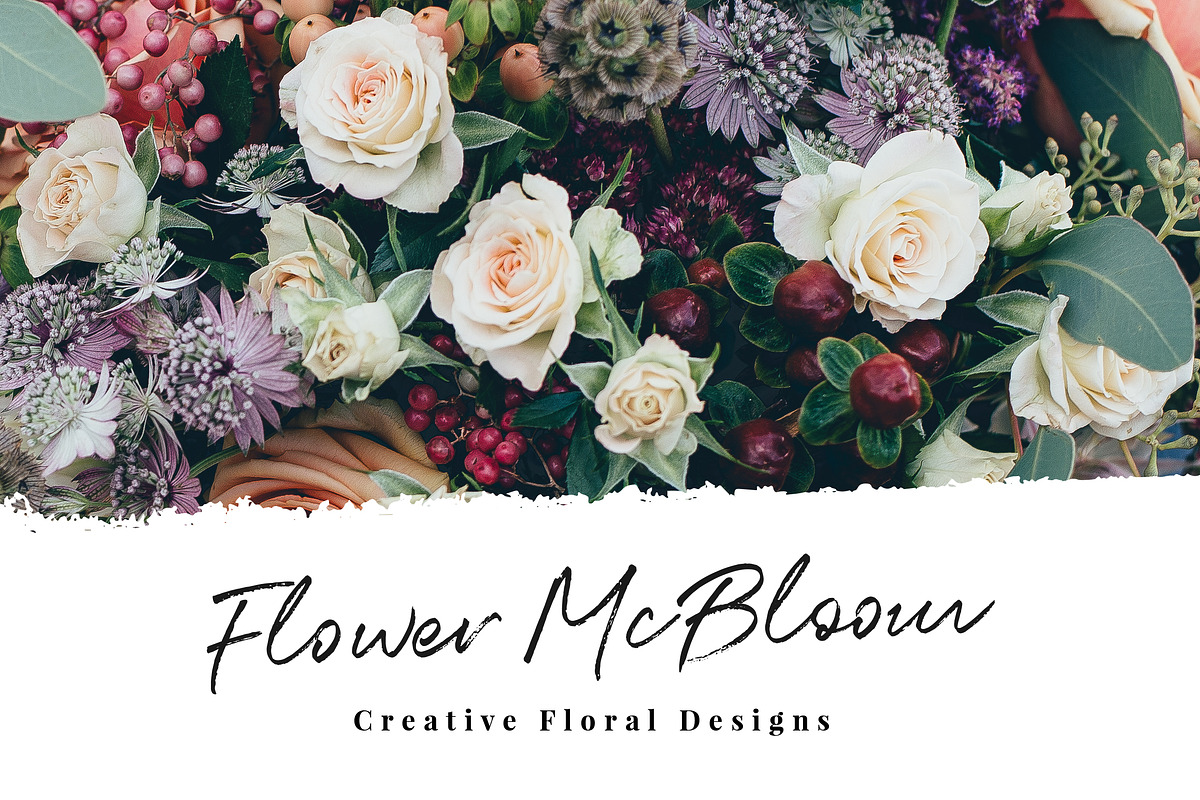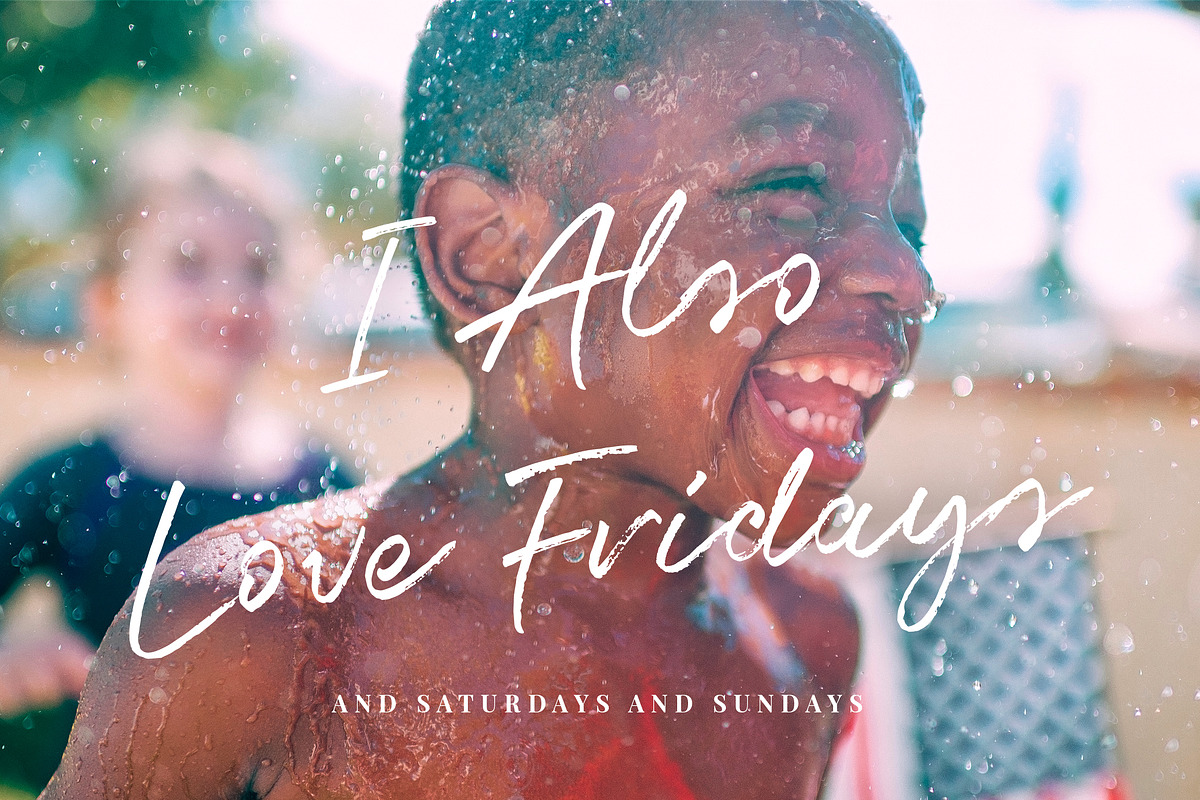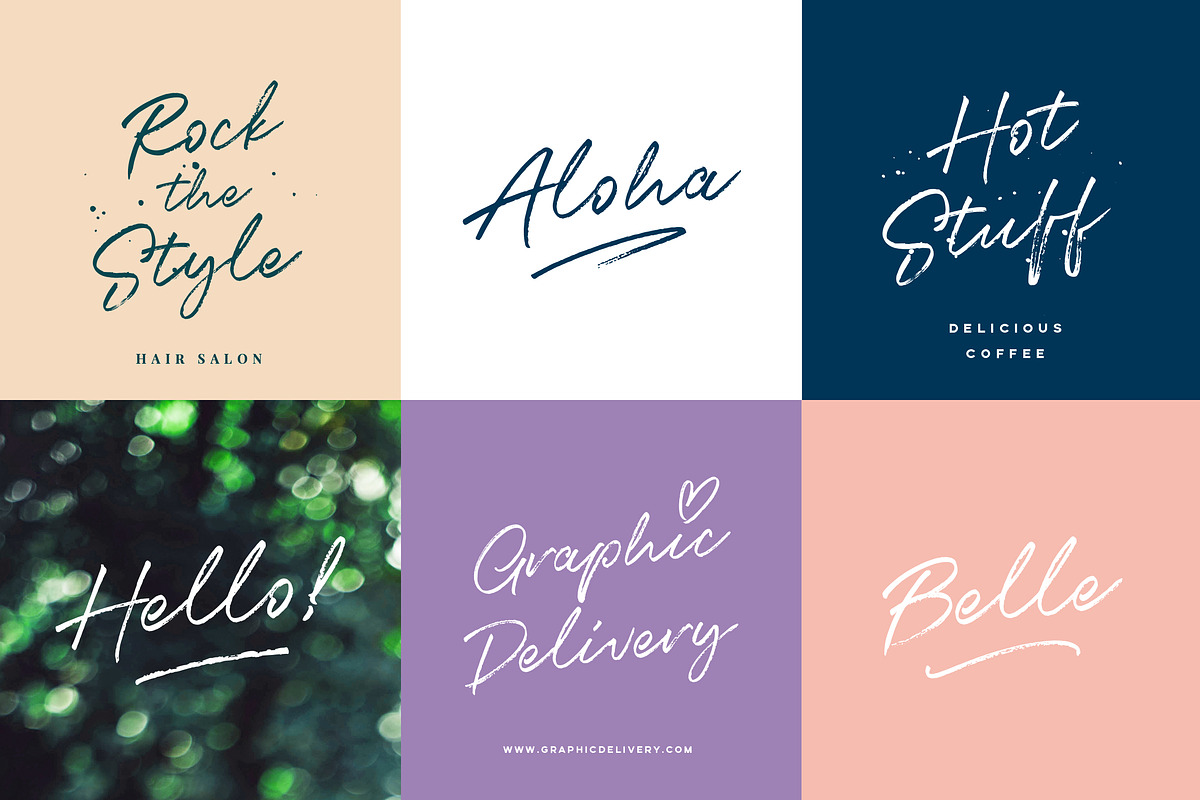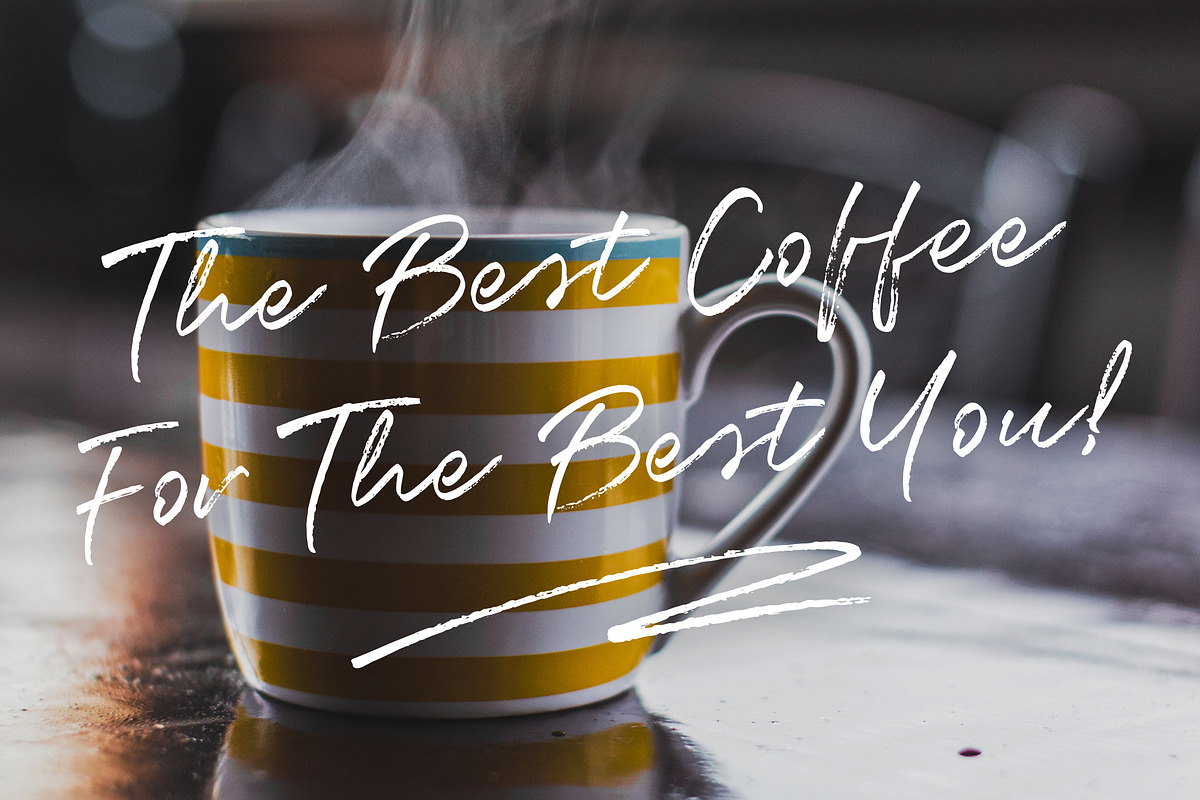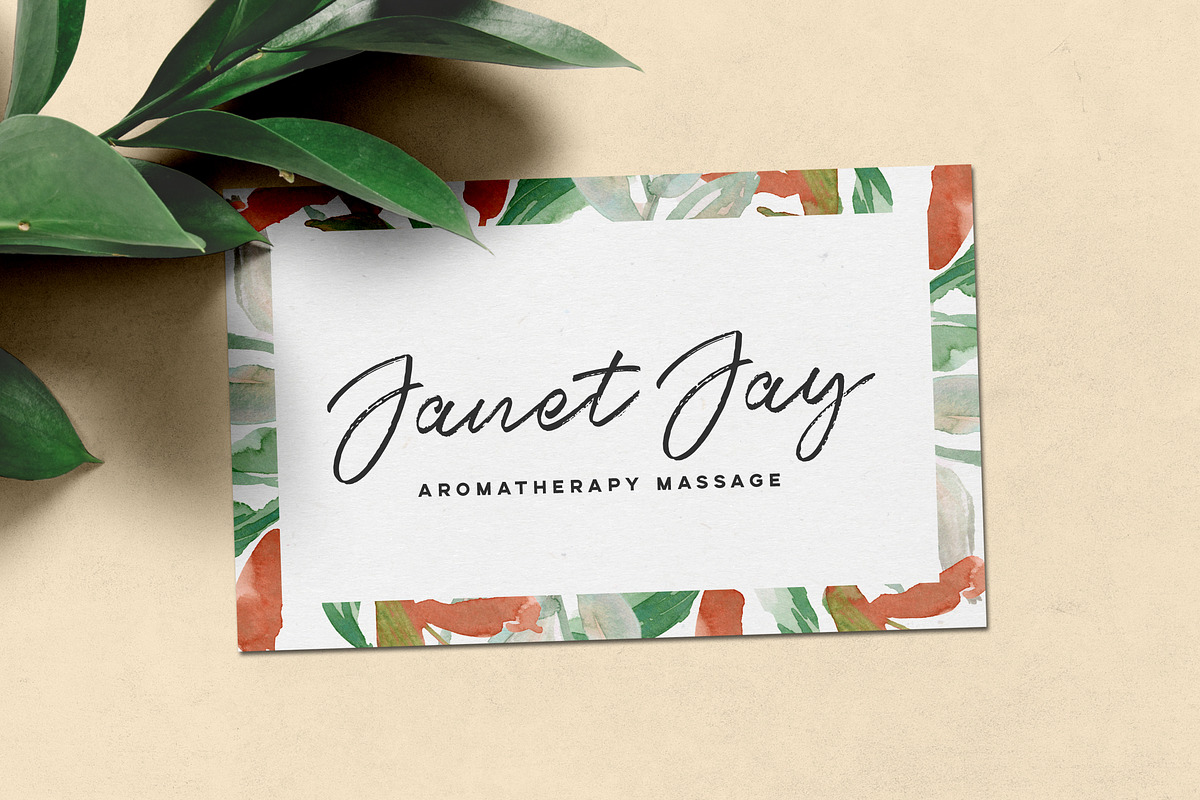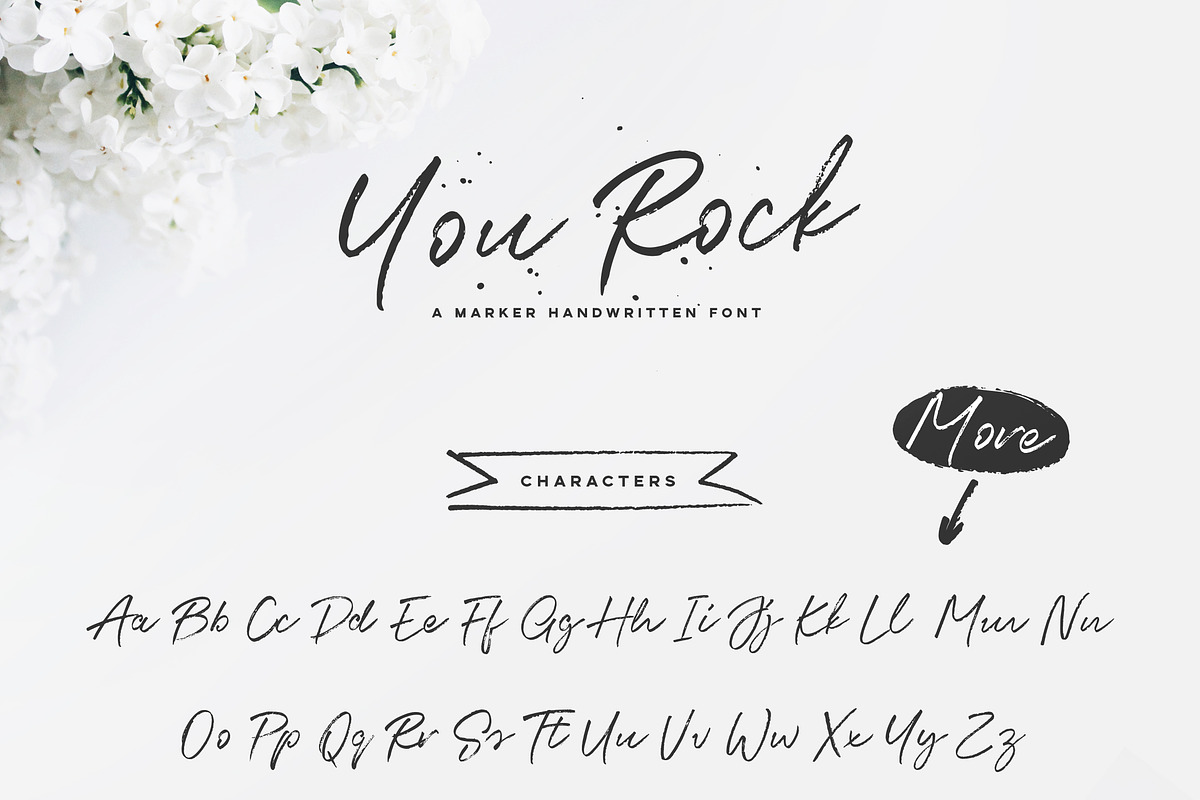
You Rock Handwritten Font
You Rock Handwritten Font by VladCristea is a font selected for branding, posters, packaging, typography.
- You Rock comes with upper and lowercase Basic Characters, Numbers, Marks and Punctuation.
Why You Rock Handwritten Font is worth a look
You Rock Handwritten Font by VladCristea fits naturally into Branding, posters, packaging, typography.